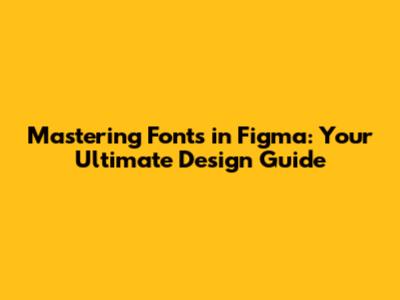
Introduction to Fonts in Figma: Why They Matter
Hey guys, let's talk about something super fundamental yet often underestimated in the world of design: fonts in Figma. Seriously, typography in Figma isn't just about picking a nice-looking letterform; it's the very soul of your design, dictating readability, conveying brand personality, and guiding user experience. Think about it: a perfectly crafted layout can fall flat if the font choice is off, or if the text styles are inconsistent. That's why understanding and mastering Figma fonts is absolutely crucial for any designer aiming to create professional, impactful, and user-friendly interfaces. In this comprehensive guide, we're going to dive deep into every aspect of managing and utilizing fonts within Figma, from understanding different font types and licensing to installing local fonts, leveraging Google Fonts, and even mastering advanced text styling techniques. We'll explore why a solid grasp of typography enhances your design workflow in Figma and ultimately elevates the quality of your output. So, if you've ever felt overwhelmed by font choices or struggled with inconsistencies in your Figma projects, you're in the right place. We're going to break it all down, making sure you walk away with the confidence to wield Figma's font capabilities like a pro. Get ready to transform your designs by giving them the typographic attention they truly deserve, because, trust me, your users (and your design lead!) will notice the difference. This isn't just about aesthetics; it's about clear communication and creating an intuitive visual hierarchy that makes your designs not just pretty, but truly functional and engaging. We're talking about making your Figma designs sing with perfectly chosen and expertly applied typefaces.
Before we jump into the nitty-gritty of using fonts in Figma, it's super important, guys, to grasp the different types of fonts available and, crucially, the often-overlooked aspect of font licensing. You might think a font is just a font, but there's a whole world of variety out there, and each comes with its own set of rules. When we talk about font types, we generally categorize them based on their aesthetic and functional characteristics. You've got your classic Serif fonts, like Times New Roman or Georgia, known for their little 'feet' or flourishes at the end of strokes, which often convey tradition, authority, and are great for long-form body text. Then there are Sans-serif fonts, like Helvetica or Open Sans, which lack those flourishes, giving them a clean, modern, and often more digital feel, making them ideal for UI elements and web content due to their excellent readability on screens. Beyond these, you'll encounter Display fonts, which are highly decorative and perfect for headlines or branding where impact is key, though they're not suitable for small text. And let's not forget Script fonts, mimicking handwriting, adding a personal or elegant touch. Understanding these distinctions is the first step in making informed choices for your Figma projects.
Utilizing Google Fonts and Web Fonts Directly in Figma
Moving on, let's talk about one of the most incredible resources for fonts in Figma that's readily available to everyone: Google Fonts. If you're looking for high-quality, free-to-use fonts that are reliable and web-optimized, Google Fonts is your absolute best friend, guys. The platform offers a vast library of open-source typefaces, and the biggest benefit of Google Fonts is that they are all licensed for commercial use, meaning you can confidently use them in any of your Figma projects, whether personal or professional, without worrying about licensing fees. What's even cooler is how seamlessly Figma integrates with Google Fonts. Unlike local fonts that require the Font Helper, Figma automatically handles web fonts, especially those from Google Fonts. When you open a Figma file, it dynamically loads any Google Fonts used in that file directly from Google's servers, meaning you don't need to install them locally on your machine. This is a game-changer for collaborative work and ensures consistency across different operating systems and team members. Everyone sees the same font, always, as long as they have an internet connection. This automatic handling significantly streamlines the typography workflow in Figma, reducing setup time and potential font-related issues, making it a go-to for many designers who prioritize efficiency and universal accessibility in their Figma designs.
Mastering Text Properties and Styling in Figma
Okay, guys, you've got your fonts installed and ready; now it's time to unleash their full potential by mastering text properties and styling in Figma. This is where your Figma designs truly come alive and achieve that polished, professional look. Figma's text panel, usually found on the right sidebar when a text layer is selected, is your command center for all things typography. Here, you'll find a plethora of options to fine-tune every aspect of your chosen Figma fonts. Let's break down the most important ones. First up are the absolute essentials: Font Family, where you select your typeface (e.g., "Inter," "Roboto," "Playfair Display"); Font Size, which determines the height of your text in pixels; and Font Weight, allowing you to choose between light, regular, medium, semi-bold, bold, extra bold, and black variations (depending on what's available in the font family). These three are the foundational elements for defining your typography in Figma.
Beyond the basics, you have powerful controls for spacing. Line Height (or line-spacing) dictates the vertical space between lines of text, crucial for readability, especially in paragraphs. A good rule of thumb is to set it between 120% and 150% of your font size for optimal legibility. Then there's Letter Spacing (or tracking), which adjusts the space between individual characters. You'll typically want to slightly decrease letter spacing for larger headings to make them feel more cohesive, while body text usually benefits from the default or a slight increase for better legibility. Paragraph Spacing allows you to add extra vertical space between paragraphs, helping to break up long blocks of text visually. Figma also offers options for Text Alignment (left, center, right, justified), Capitalization (uppercase, lowercase, title case), and Text Decoration (underline, strikethrough). Mastering these controls allows you to create precise and aesthetically pleasing text layouts in Figma.
But here's where things get really powerful for consistency and scalability: Using Text Styles for consistency. Manually adjusting every text layer for every headline, sub-headline, and body text is incredibly inefficient and prone to errors. That's why creating and managing local text styles in Figma is non-negotiable for professional Figma projects. Text styles encapsulate all those properties we just discussed—font family, size, weight, line height, letter spacing, color, and more—into a reusable preset. To create one, simply style a text layer exactly how you want it, then in the text panel, click the "Styles" icon (four dots) next what looks like a paper icon and then the "+" icon to create a new style. Give it a descriptive name (e.g., "H1/Desktop," "Body/Regular," "Caption/Bold"). Once created, you can apply this style to any text layer with a single click, ensuring perfect consistency across your Figma design file. If you later decide to change the font size of all your H1s, you simply edit the "H1" text style, and every instance of it in your file updates automatically! This feature is a lifesaver for maintaining a cohesive visual language in Figma.